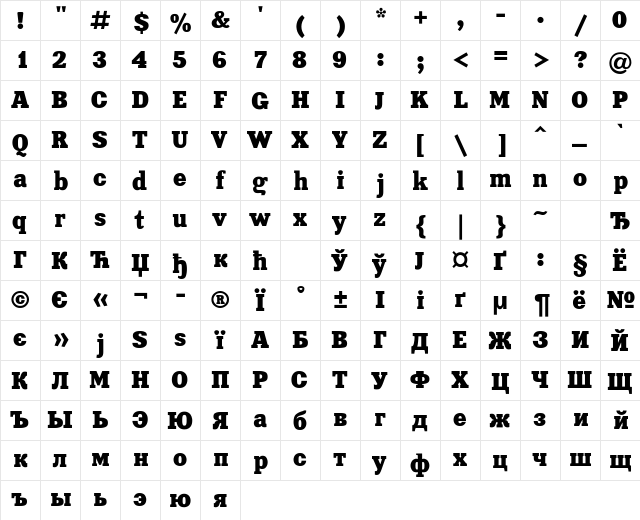
Xenia Regular
Design Context for Xenia Typeface
Xenia offers clean, dependable letterforms without strong stylistic allegiance, making it a practical choice for designers who need flexibility.
Pro Tip: Use Xenia in both headline and body roles to test its range before committing to a single application.